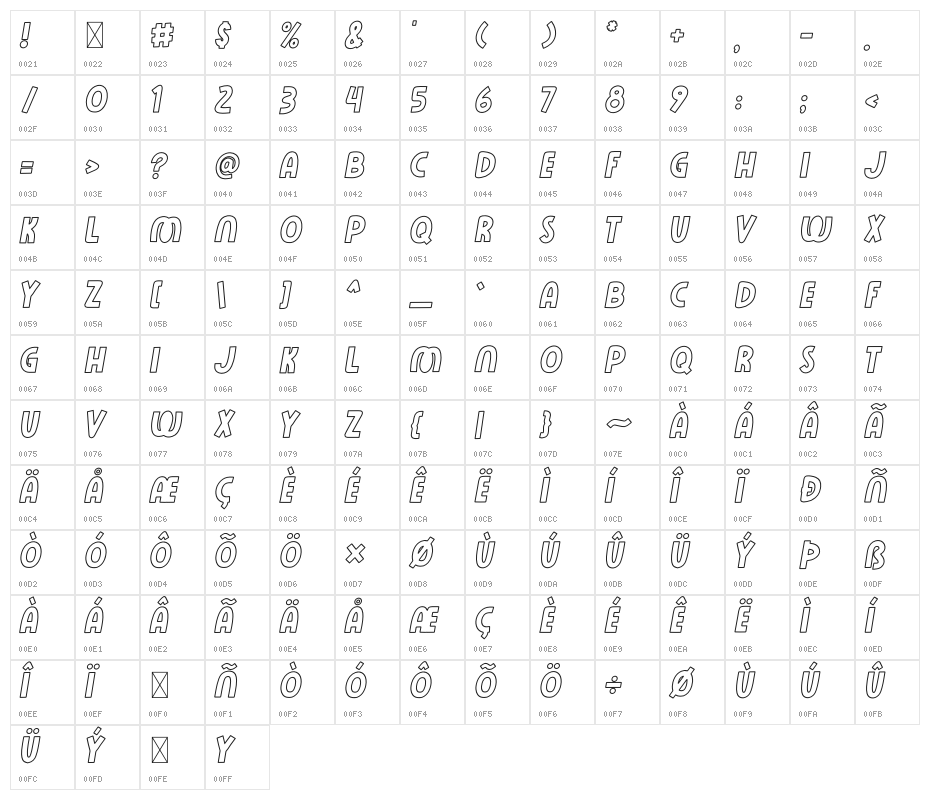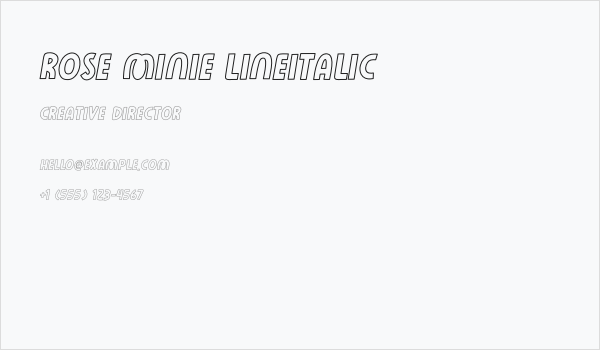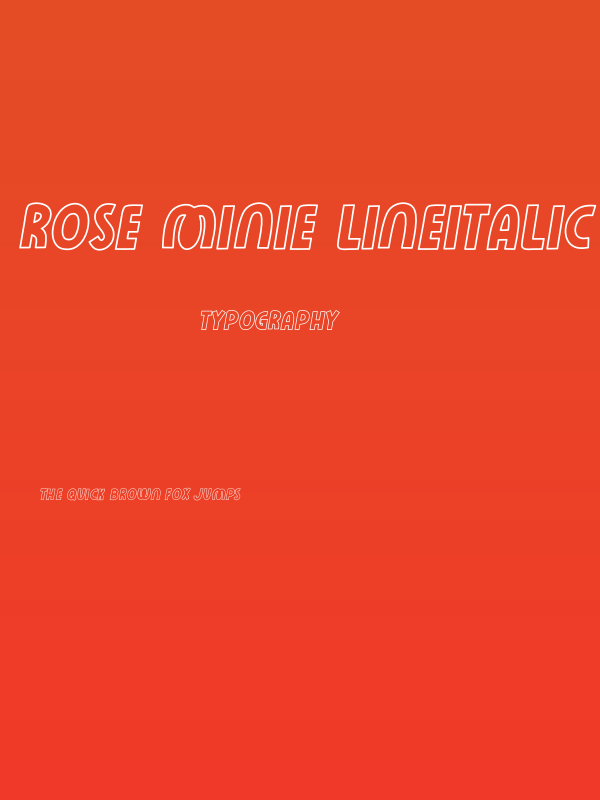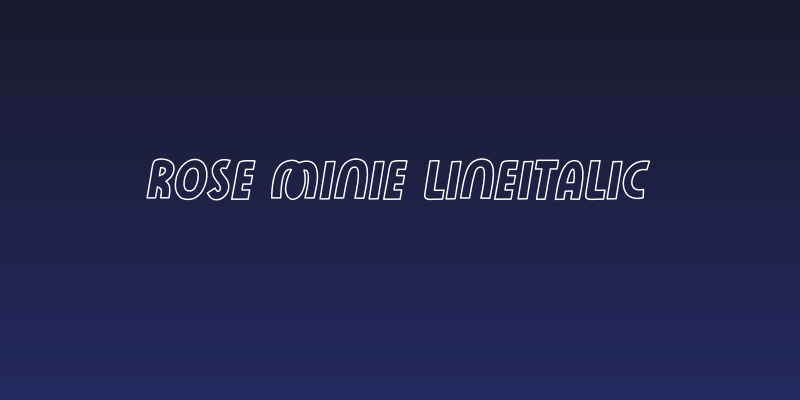
Rose Minie LineItalic Font
Rose Minie LineItalic Description
This font features a playful and modern design with a unique outline style. The characters are bold and slightly italicized, giving them a dynamic and energetic appearance. The uppercase and lowercase letters maintain a consistent width, while the numbers and special characters complement the overall style. The font's outline effect adds a layer of depth and creativity, making it stand out in various design contexts. Its clean lines and geometric shapes make it suitable for projects that require a contemporary and eye-catching look.
| Proposed Projects | Ideal for posters, logos, headlines, and branding materials that require a modern and playful touch. |